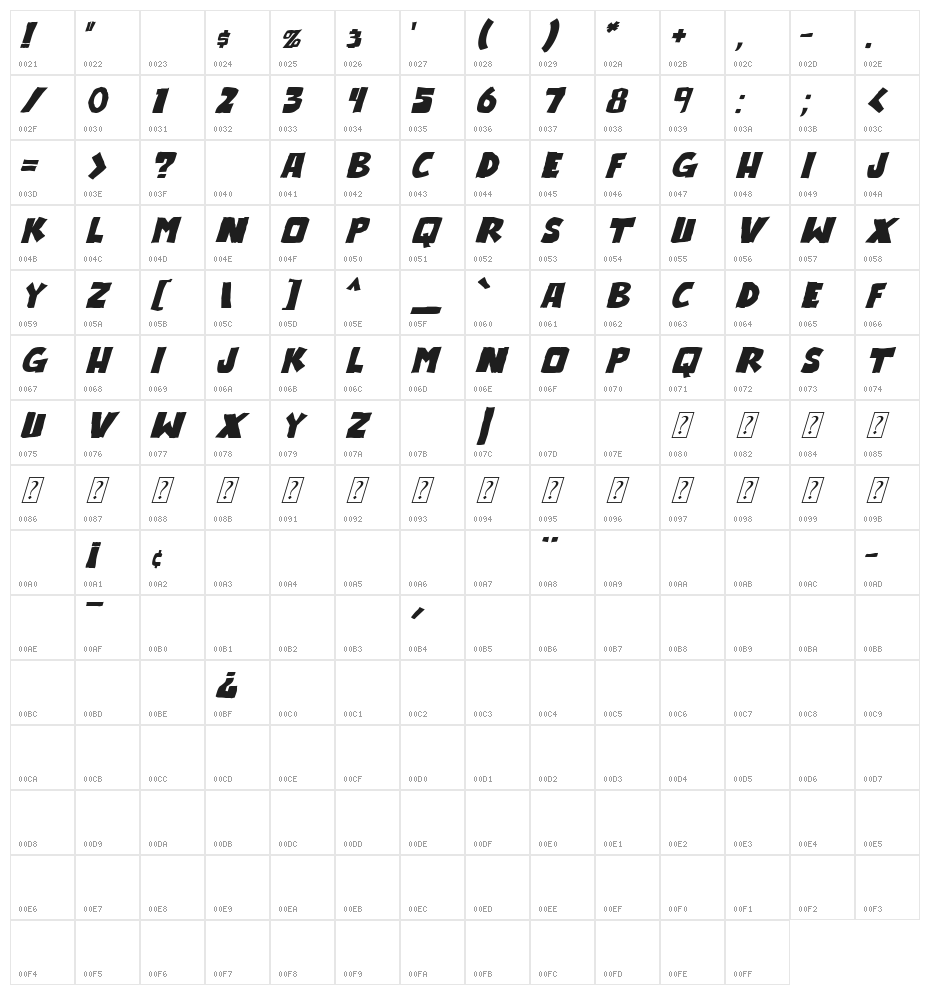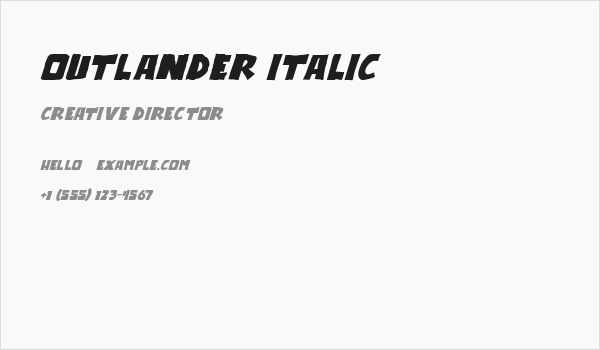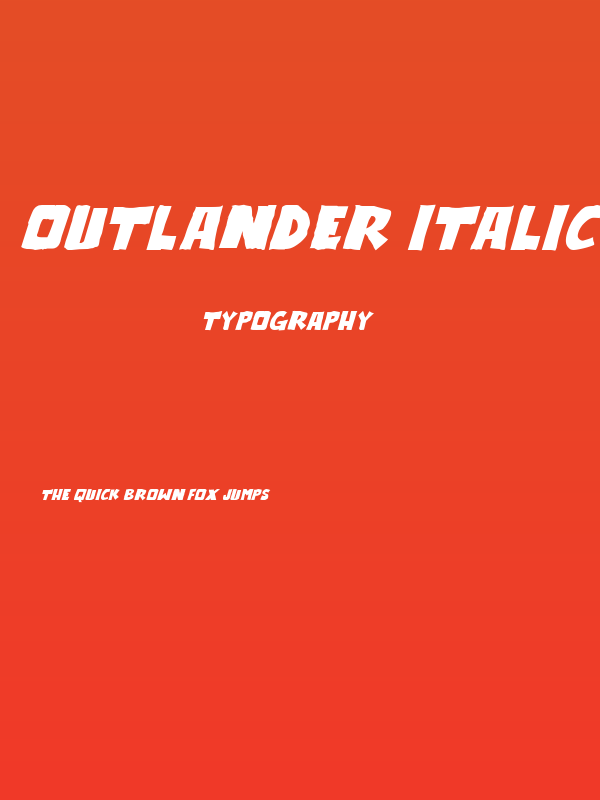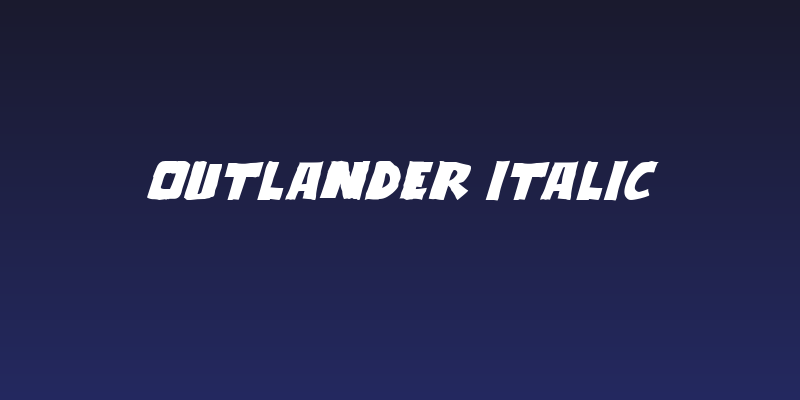
Outlander Italic Font
Outlander Italic Description
This font features a bold and dynamic style with a strong italic slant, giving it a sense of movement and energy. The characters are thick and robust, with sharp angles and a slightly rough texture that adds a rugged, adventurous feel. The uppercase and lowercase letters maintain a consistent style, with the uppercase being particularly striking and attention-grabbing. The numbers and special characters follow the same bold and dynamic design, ensuring a cohesive look across all text elements. This font's unique style makes it stand out, making it ideal for projects that require a bold statement.
Overall StyleModern, Decorative
Proposed ProjectsIdeal for sports branding, action movie posters, dynamic logos, and adventurous book covers.